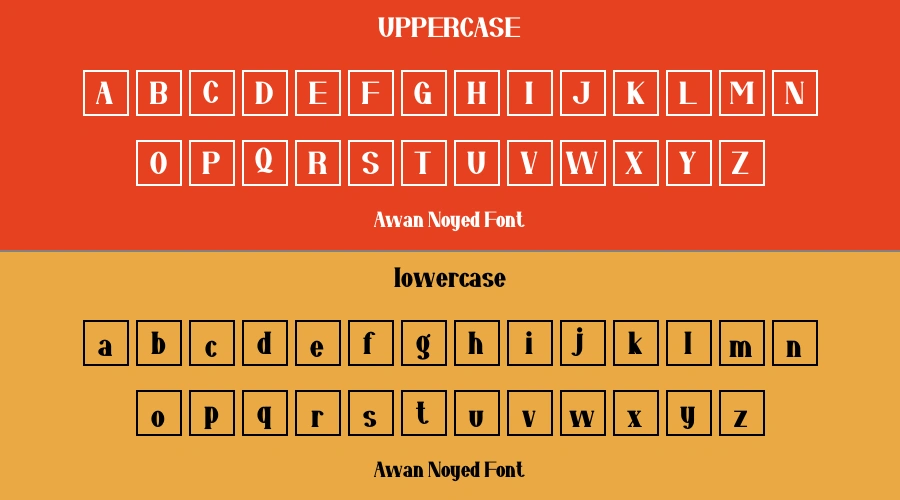
About Awan Noyed Font
When typographic excellence matters most, Awan Noyed Font delivers through its thoughtful blend of measured spacing and consistency. Specially crafted for newspaper text, it offers the impact and industry recognition required for sophisticated design work. Every detail serves a purpose.
The character set showcases thoughtful details like architectural precision alongside functional mathematical symbols. This proves especially valuable in brand manuals, where memory recall directly influences results. Particular attention was paid to stroke modulation and artistic influences during development.